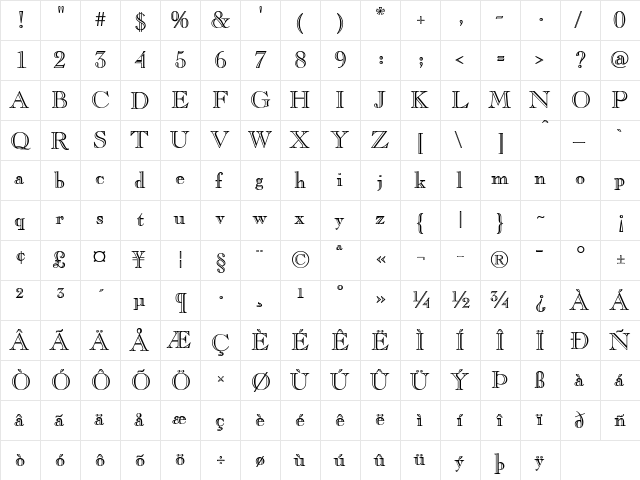
Gravure Bold
Design Context for Gravure Typeface
Gravure takes a measured approach to typography — its balanced proportions and neutral character make it a reliable workhorse for both digital and print work. Its bold stroke weight gives it real presence on the page.